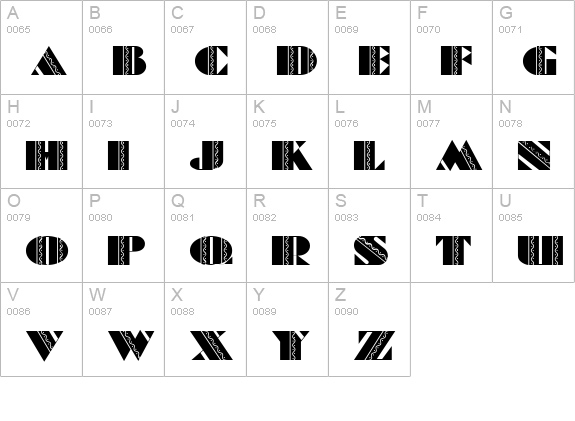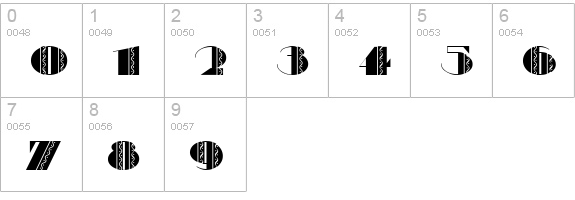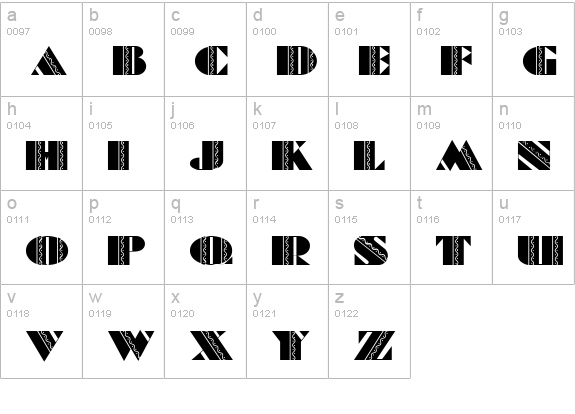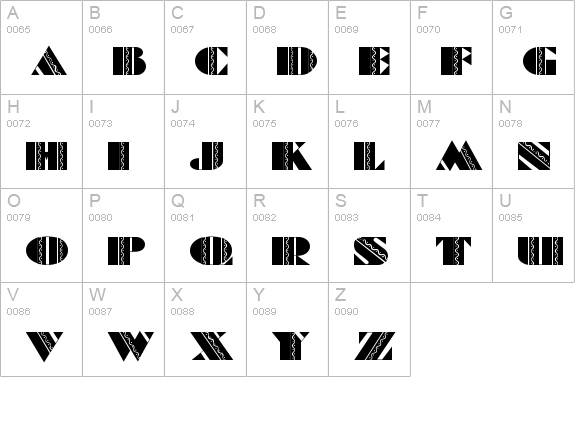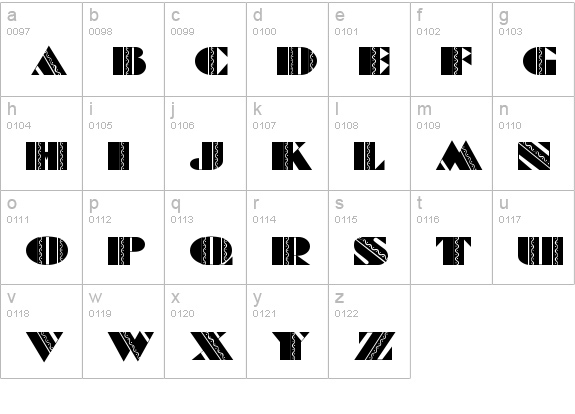
Fete Accompli NF is a stunning and elegant font that exudes sophistication and charm. With its delicate curves and vintage-inspired design, this typeface is perfect for adding a touch of class to any project. Whether you're creating invitations, labels, or logos, Fete Accompli NF will make your text stand out in style. The best part? Fete Accompli NF is completely free to download at FontsMarket.com. You can easily enhance your designs with this beautiful font without any cost. Don't miss out on the opportunity to elevate your creations with Fete Accompli NF - download it now and let your creativity shine!